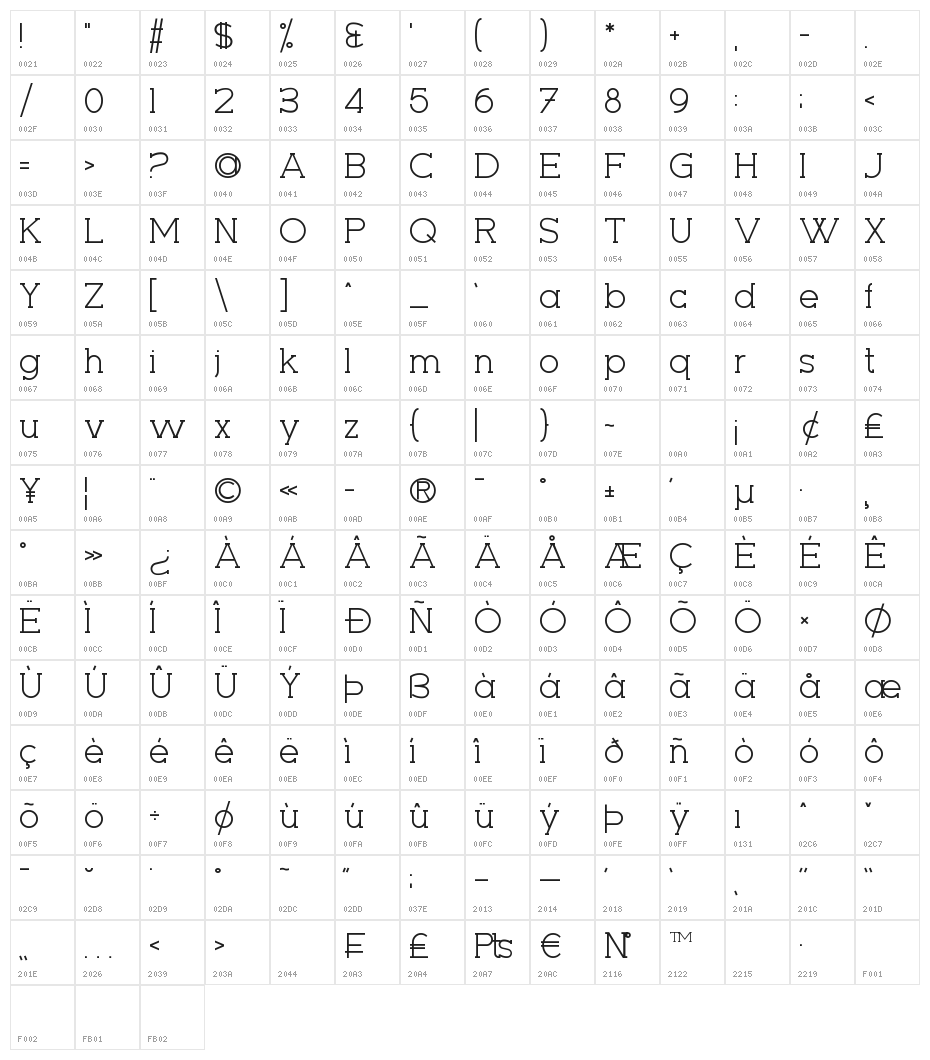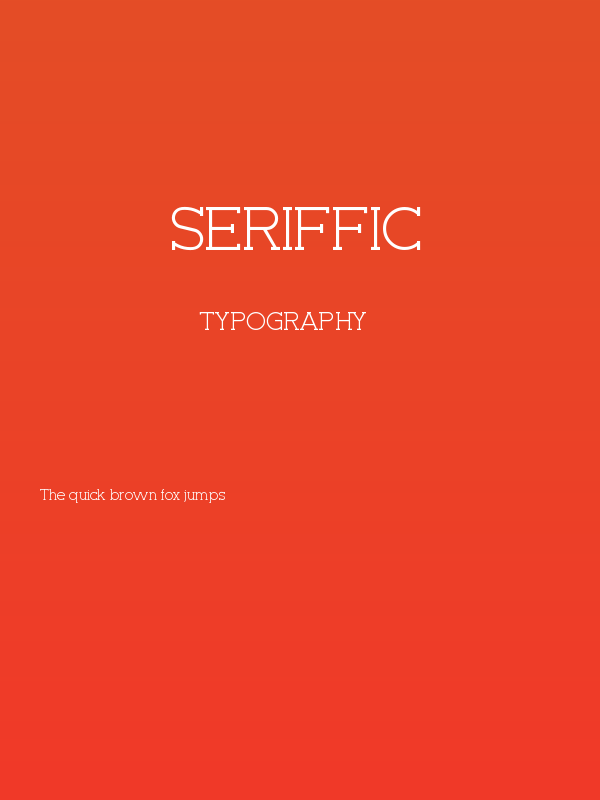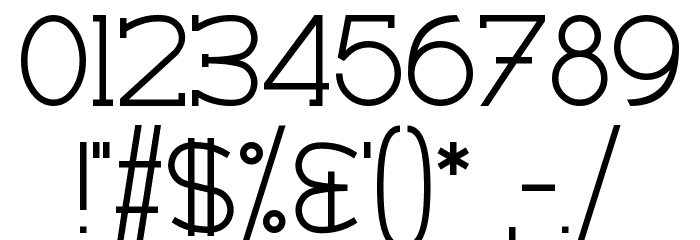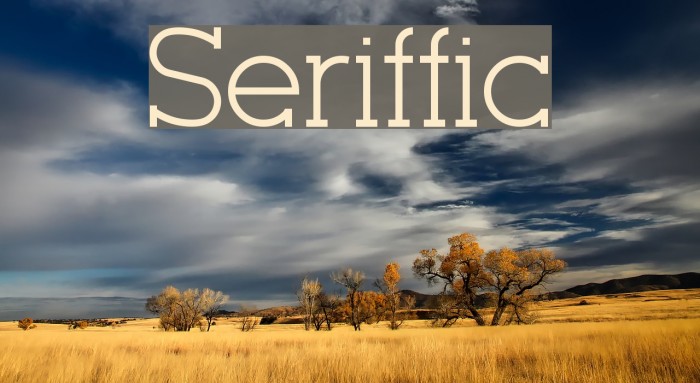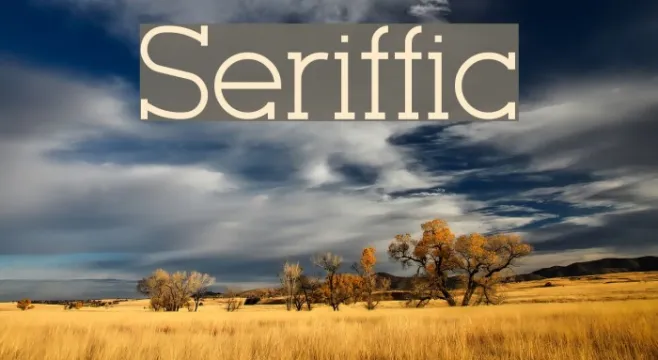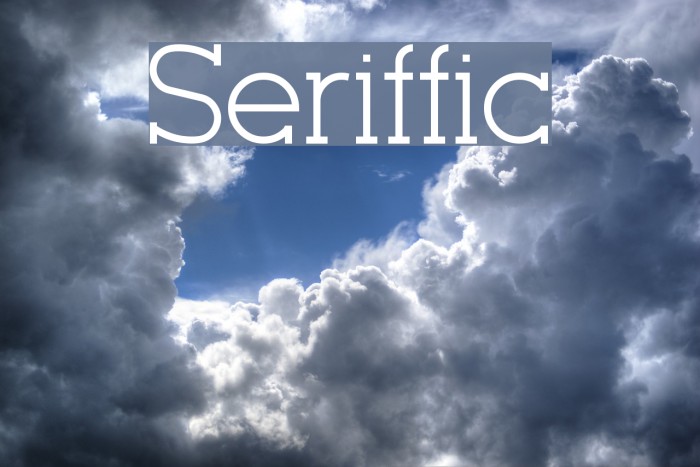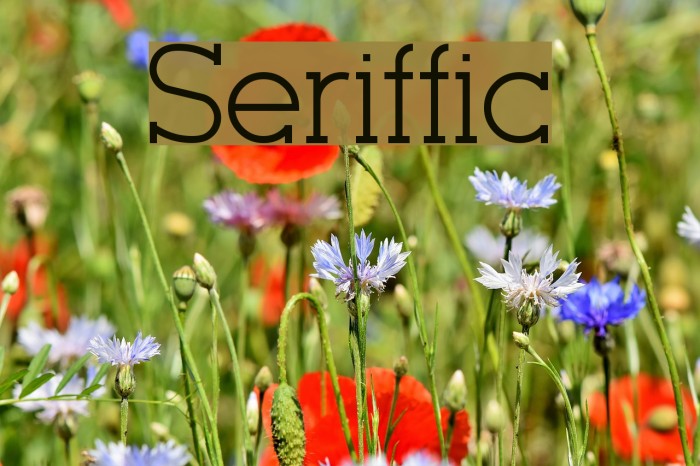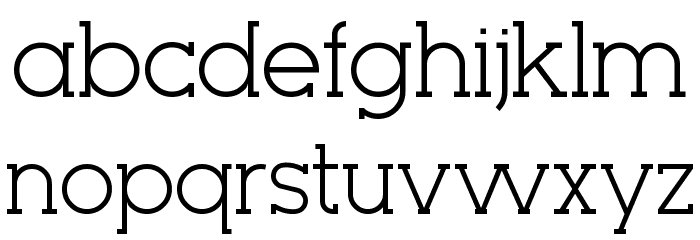
Seriffic Font
Seriffic Description
This font features a modern serif style with clean, geometric lines and a balanced structure. The uppercase letters are bold and commanding, while the lowercase letters maintain a consistent flow with slightly rounded edges. The numerals are distinct and clear, making them easily readable. Special characters are well-integrated, maintaining the overall aesthetic. The font's design is both functional and stylish, suitable for a variety of applications. Its clarity and elegance make it a versatile choice for both digital and print media.